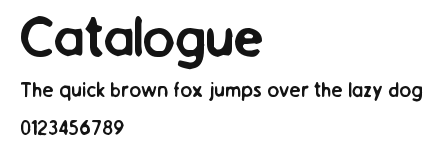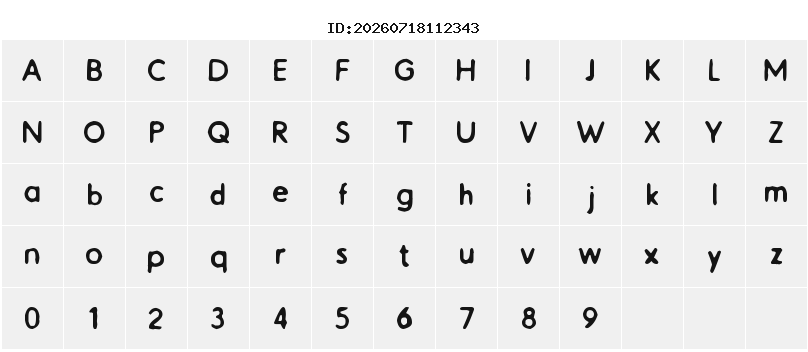
Catalogue Preview
• Font Name: Catalogue
About Catalogue.ttf
Catalogue.ttf is a modern, elegant sans-serif font designed for ultimate readability and visual harmony. Perfect for branding, headlines, web design, and print materials.